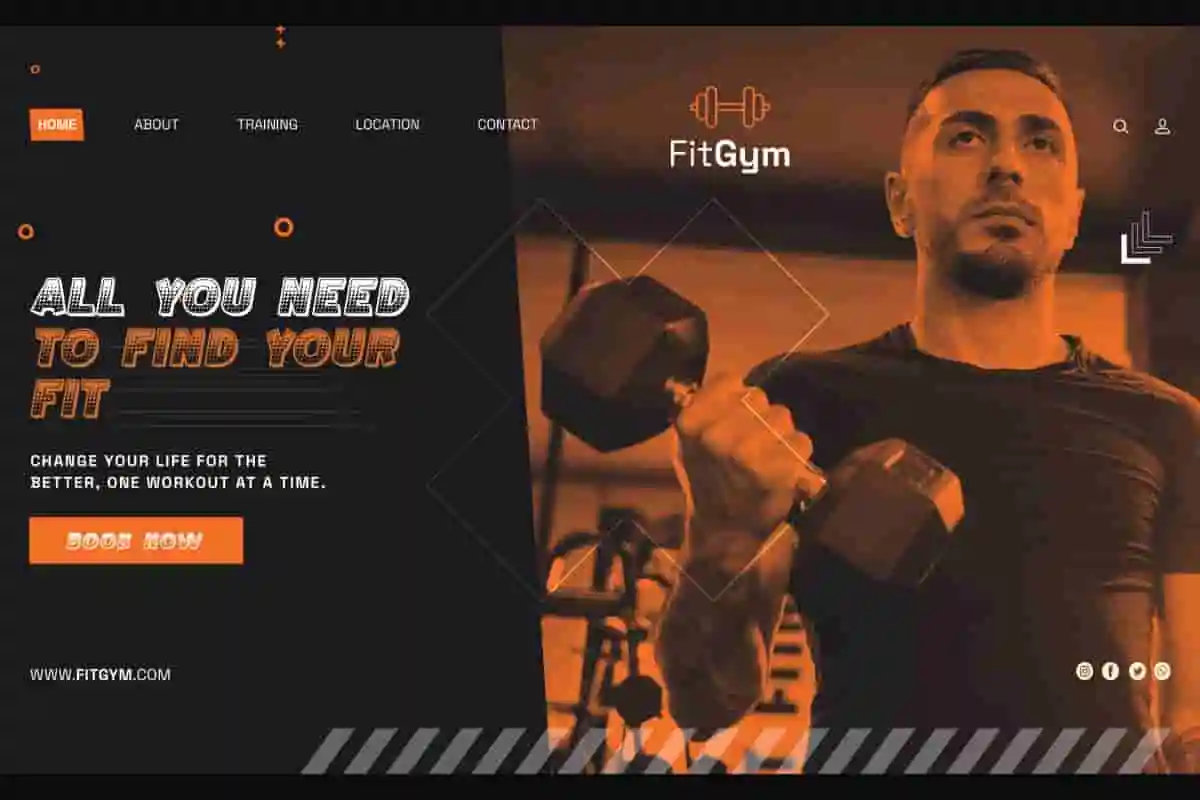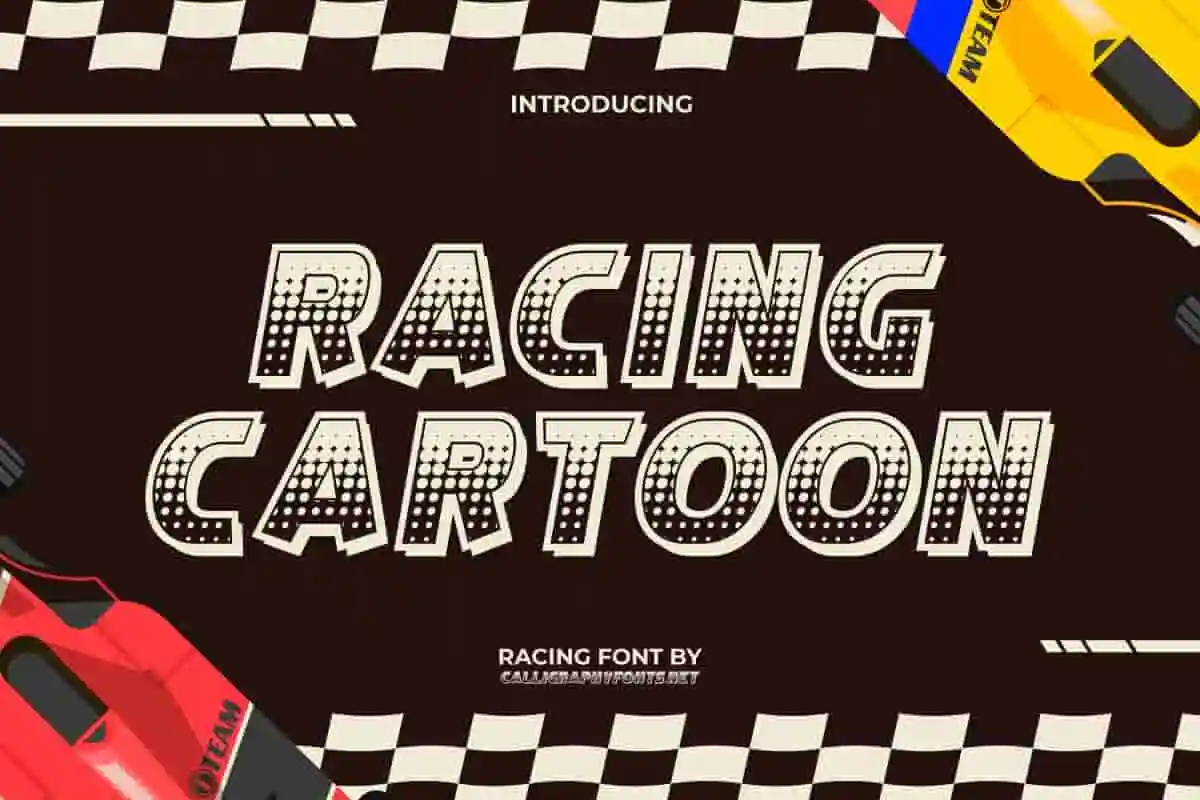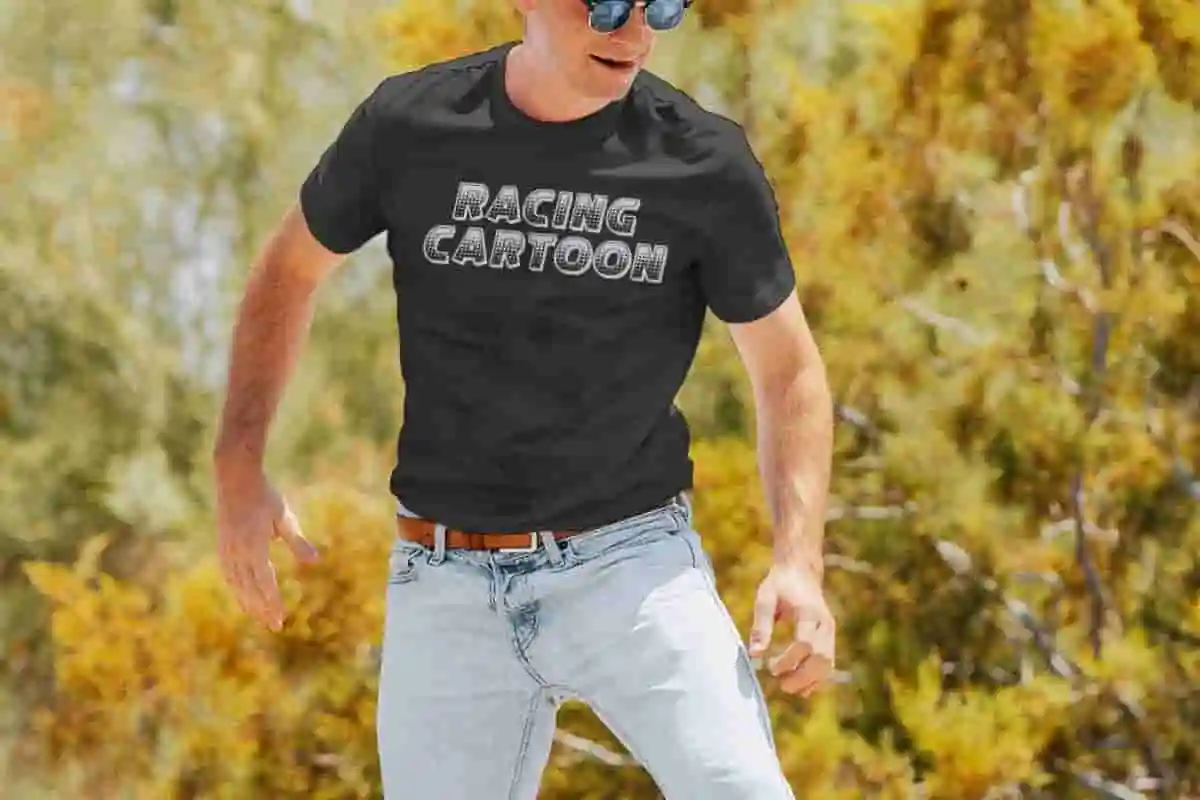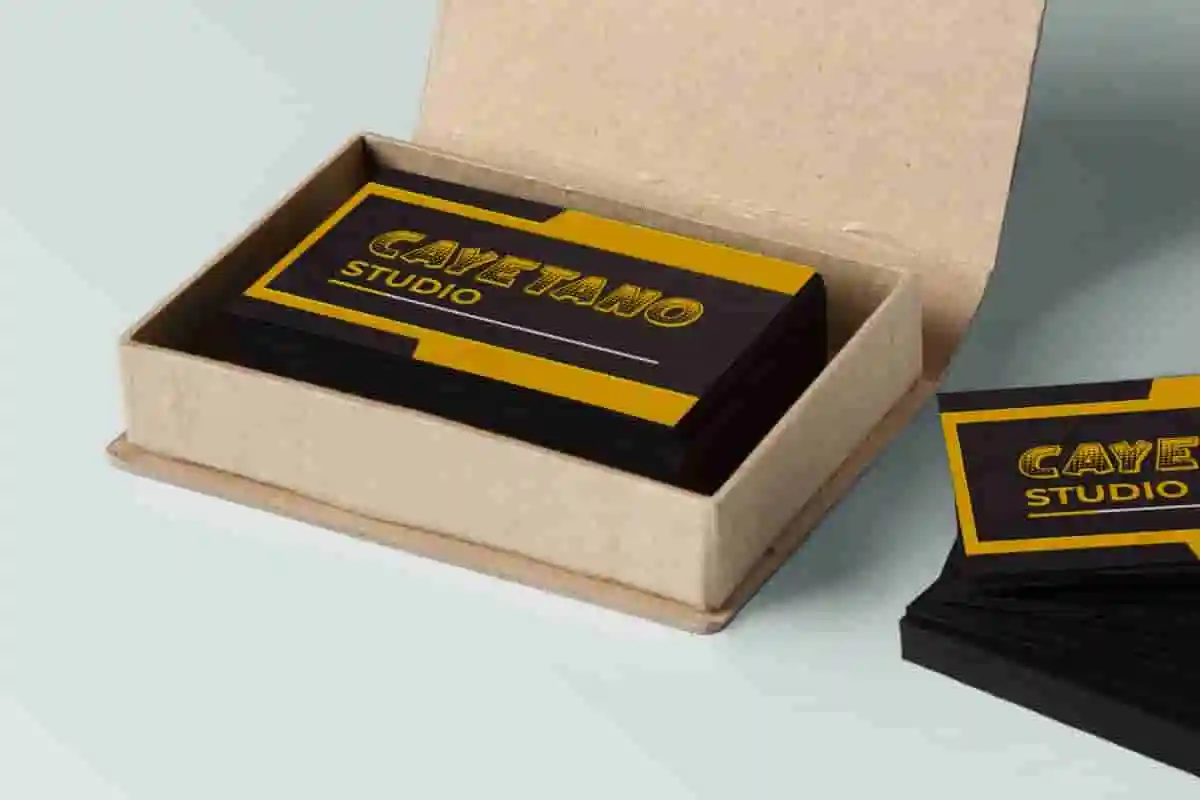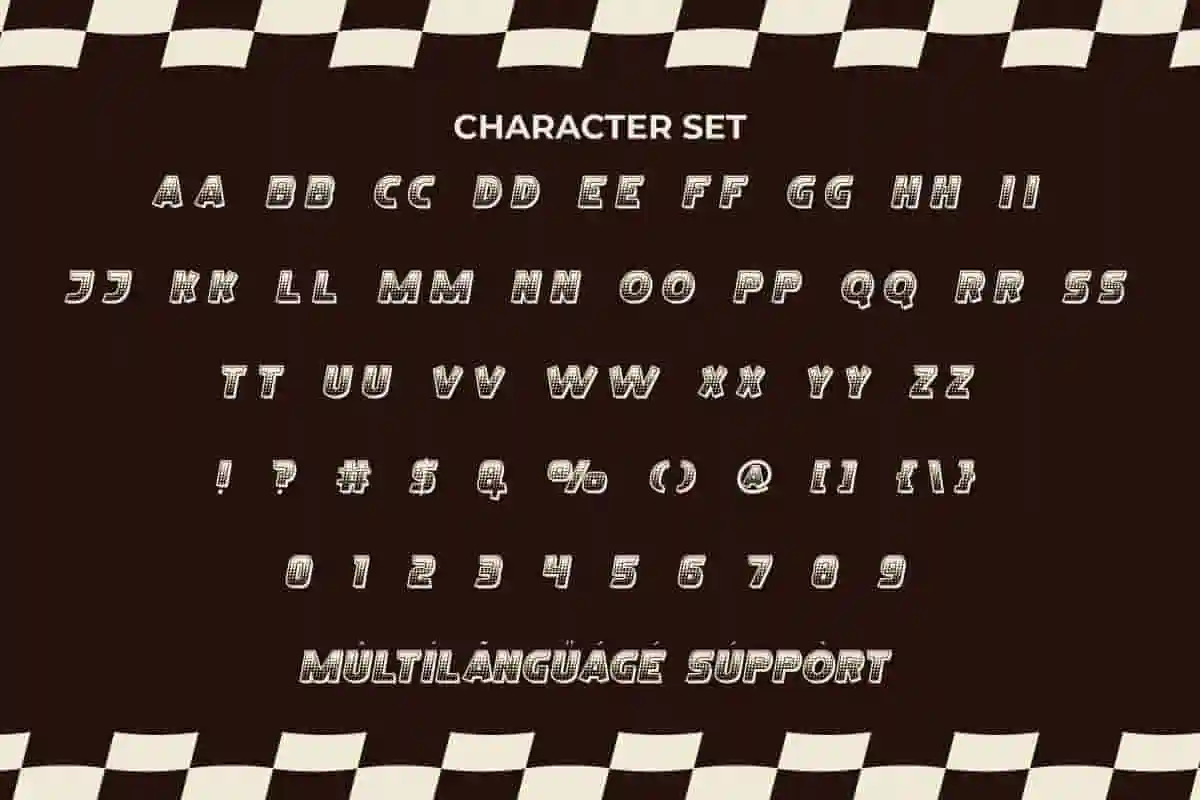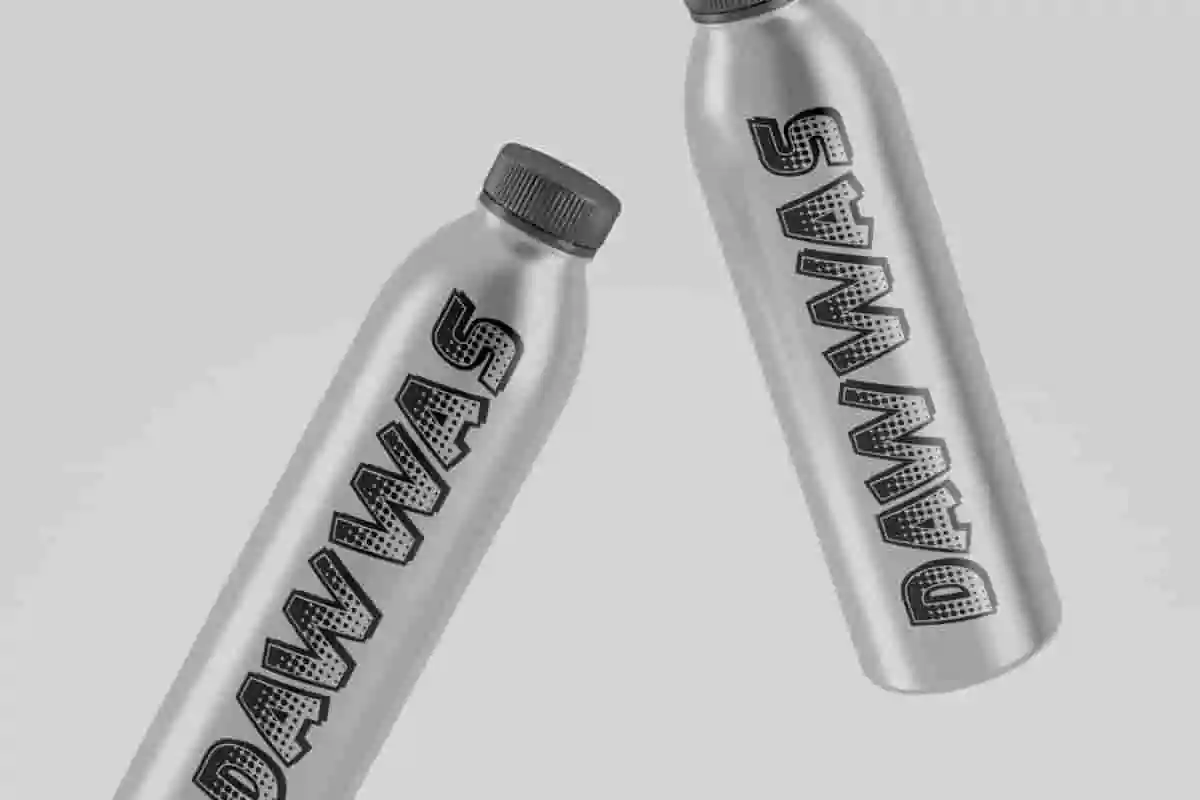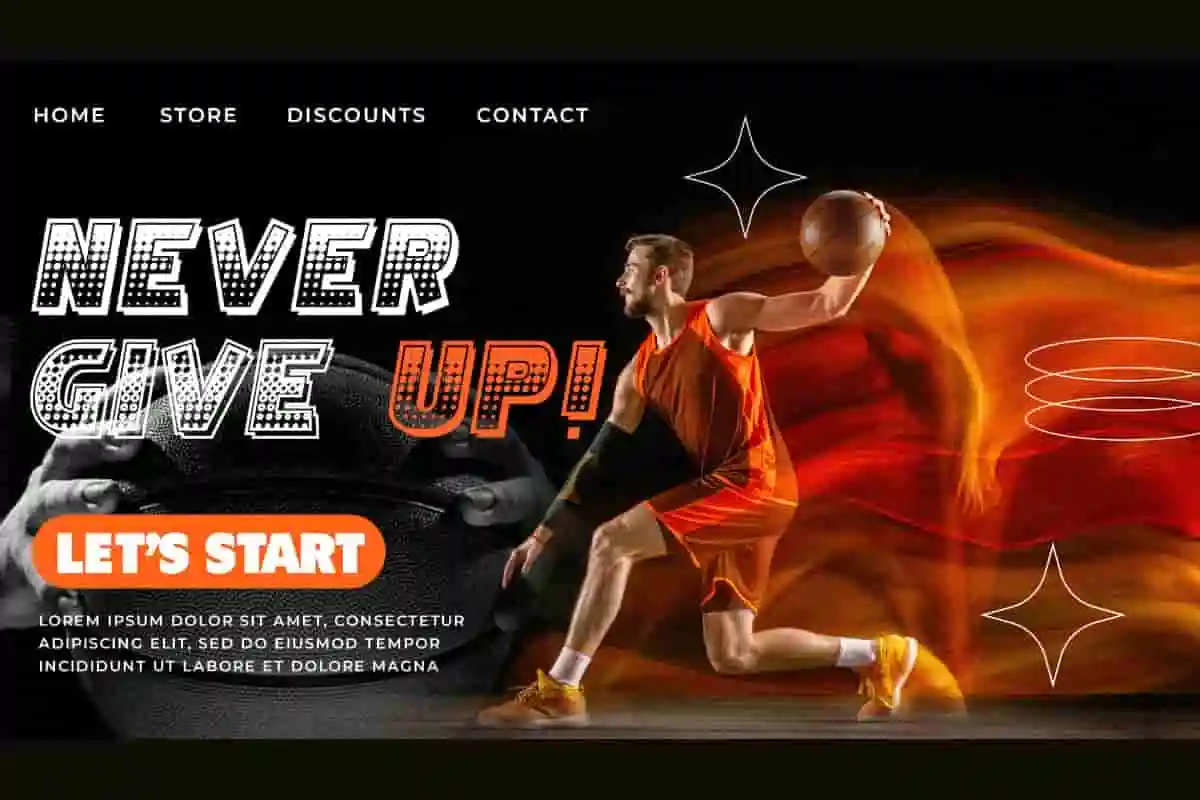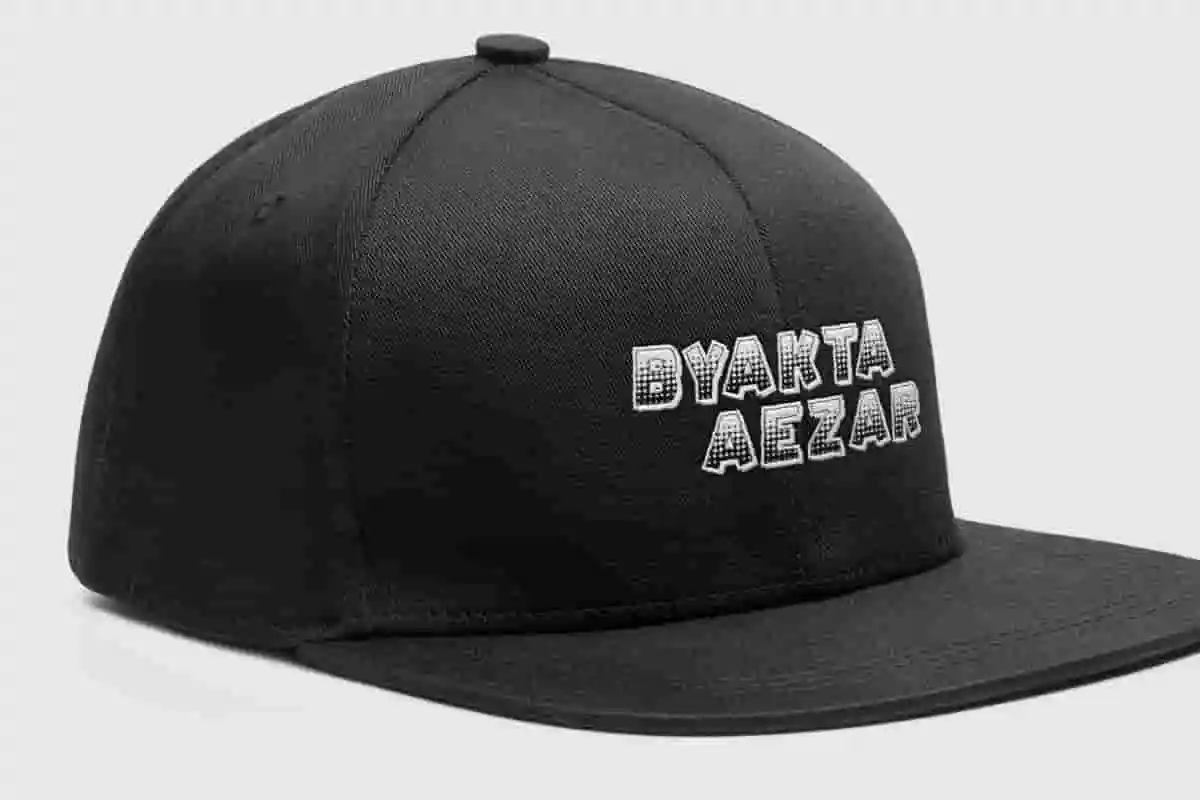
Racing Cartoon Display Font
Racing Cartoon Font is a fun retro and expressive cartoon comic style racing font. It will be suitable for non-formal purposes to be speedy and easy, such as apparel, gym, sport racing, t shirt print, web, etc.
Racing Cartoon Font is a fun retro racing display font, has a cartoon comic style with dots. Inspired by the style of letters in comics that have characters that are not too serious and fun. It’s suitable for accessories and merchandise, automotive, clothing brand, fashion, fitness, games, graphic design, outdoor sports, sport racing, sportwear, and so on.
Meet Racing Cartoon Display Font, a lively and playful typeface designed to bring energy and excitement to your creative projects. Perfect for kids’ products, sports branding, posters, and any design that needs a bold, dynamic vibe! Whether you’re working on event flyers, game graphics, kids’ party invitations, or logo designs, Racing Cartoon adds a fun and vibrant personality that grabs attention instantly.
Looking for a font that’s full of energy and playful spirit? Racing Cartoon Display Font is here to add a fun, bold personality to your projects. Perfect for kids’ brands, sports teams, party invites, or any design that needs a splash of excitement! This font features quirky, cartoon-style letters that are easy to read and instantly grab attention.
Get ready to energize your projects with Racing Cartoon Display Font — a lively, playful typeface designed to bring boldness and fun to your creative work. Perfect for kids’ products, sports branding, event posters, and any design that needs a vibrant, dynamic touch. Whether you’re creating party invitations, logos, flyers, or packaging, Racing Cartoon’s quirky and eye-catching letterforms will make your designs pop and capture attention instantly.
• Bold, cartoon-inspired display font
• Complete uppercase
Racing Cartoon Font is a popular display font with outstanding letter characteristics, designed with a racing theme in a comic style. It’s suitable for banner, blogs, brand logo, brochure, business card, covers, decals, headers, heading, labels, monograms, packaging, poster, printed materials, signboard, title, website, and and of course for text on comics.
Racing Cartoon Font comes with a complete set of ALL CAPS for Uppercase and lowercase, Number, a large range of Punctuation and Symbol. It is supported with multilingual characters and ready to use both on Windows machine or Mac with simple installations. It’s tested to work well in the Adobe Apps (Illustrator, Adobe InDesign, Adobe Photoshop) CorelDraw, and others. PUA Encode Characters means you can access all the characters easily – Fully accessible without additional design software.